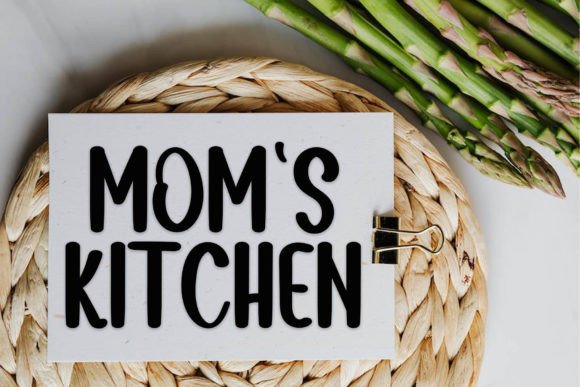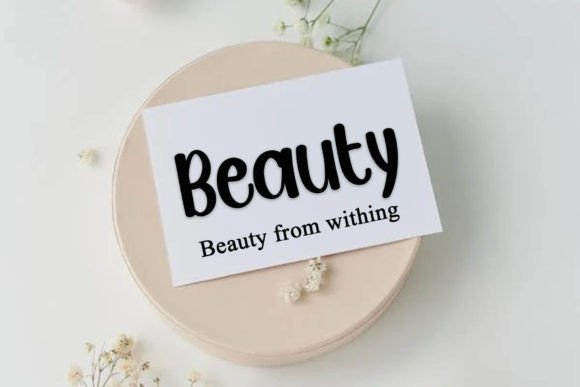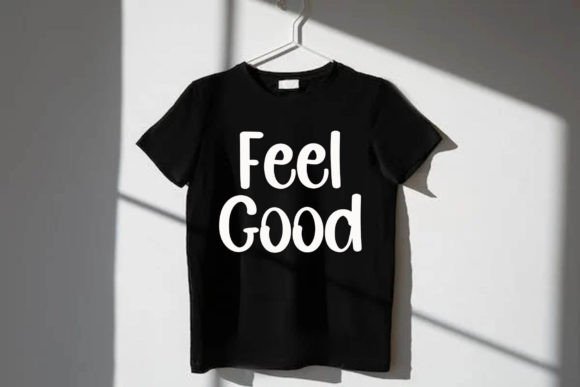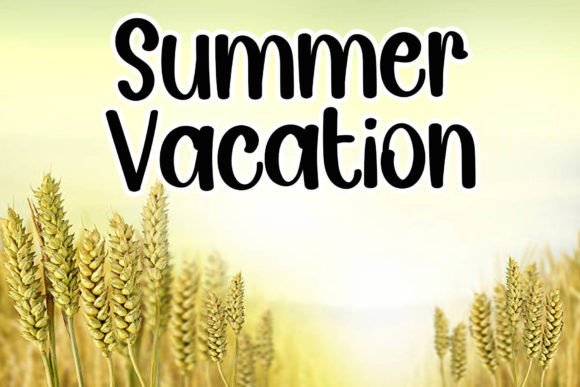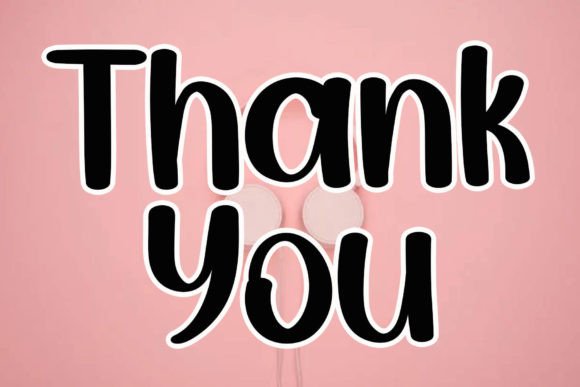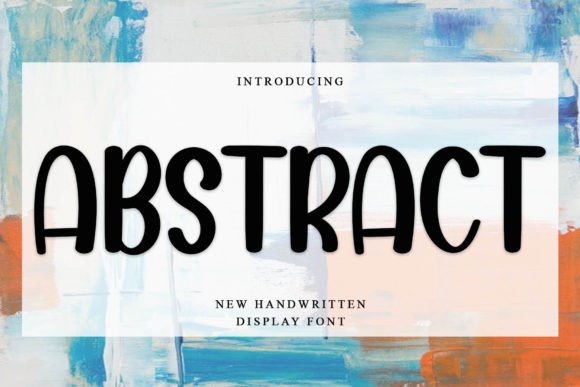
The Magic of Abstract Font: Elevate Your Designs with Elegance
I’ll never forget the time I was working on a project for a client who wanted a sophisticated, elegant look. I had spent hours browsing through font libraries, but nothing seemed quite right. That was until I stumbled upon the Abstract font. Its beautiful, handwritten curves and timeless style instantly captured my heart. In this article, I’ll share my love for this stunning font, its features, and how you can use it to create spectacular designs.
An Honest Review of Abstract Font
So, what makes Abstract font so special? Here are a few things I love:
- ✨ Elegant touch: The font’s smooth, flowing lines give it a refined, sophisticated feel that’s perfect for projects that require a touch of luxury.
- ✅ Distinctive style: Abstract font has a unique, unmistakable look that’s sure to make your designs stand out from the crowd.
- 💫 Timeless appeal: Unlike trendy fonts that quickly go out of style, Abstract font’s classic look will remain relevant for years to come.
Of course, no font is perfect, and Abstract font has a few minor quirks:
- 🤔 Limited use in body text: While Abstract font is stunning in headings and titles, it may not be the best choice for long blocks of body text.
- ⚠️ Requires attention to spacing: As with any elegant font, you’ll need to pay attention to spacing and kerning to ensure your text looks its best.
The Story Behind Abstract Font
Abstract font was created by a talented designer who wanted to craft a font that would evoke the feeling of elegance and sophistication. With its smooth lines and refined curves, Abstract font is the perfect choice for designers who want to add a touch of luxury to their projects.
| What makes Abstract font so special? | Abstract font’s elegant touch, distinctive style, and timeless appeal make it a standout choice for designers. |
| Can I use Abstract font for body text? | While Abstract font is stunning in headings and titles, it may not be the best choice for long blocks of body text. |